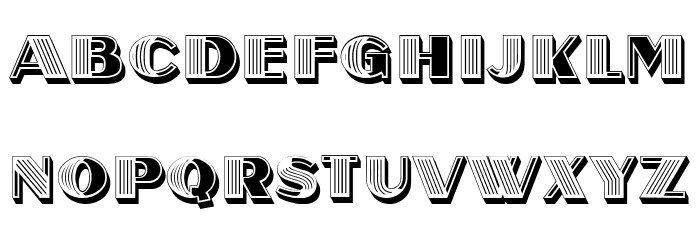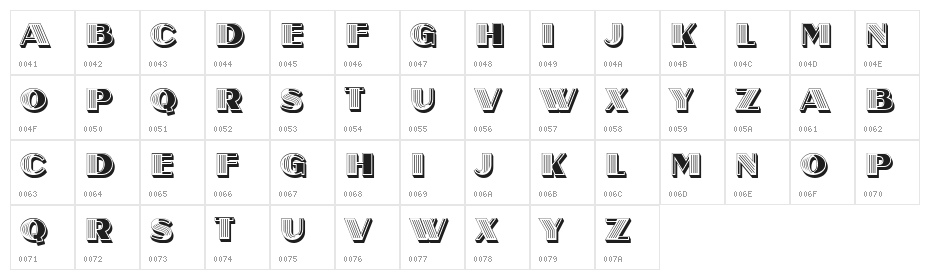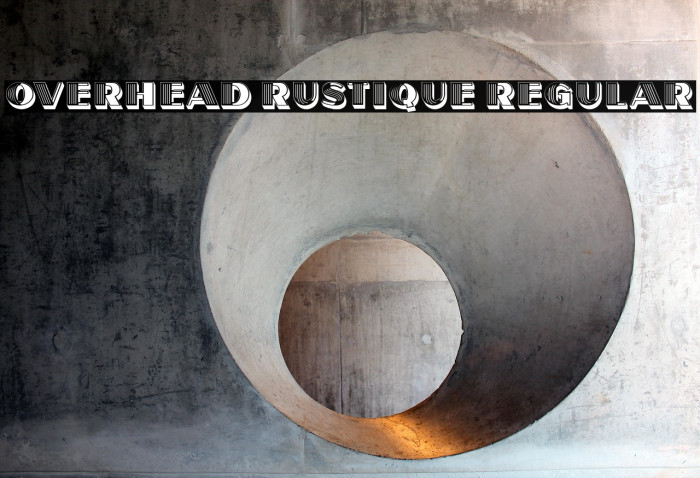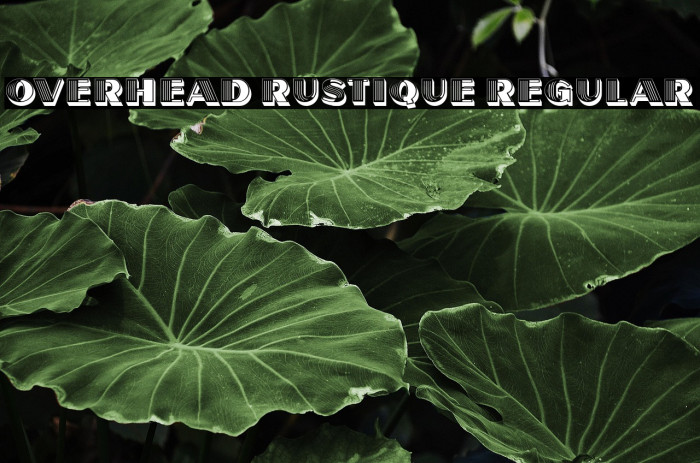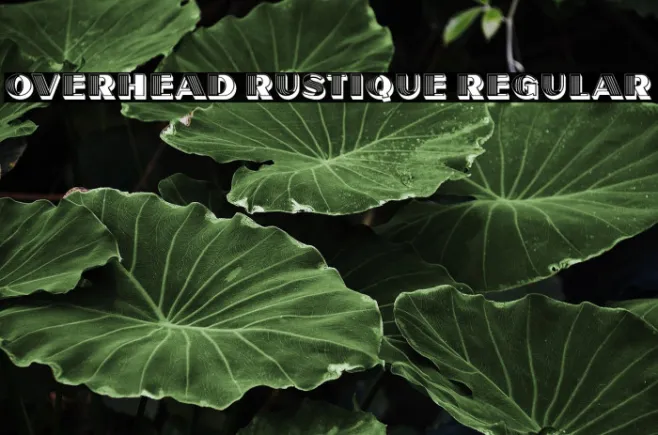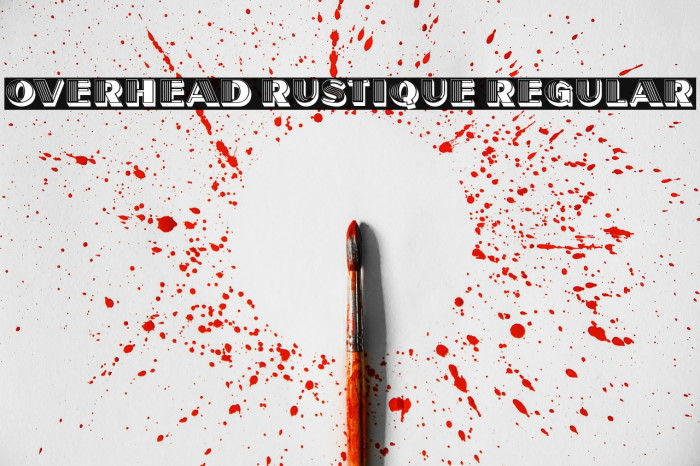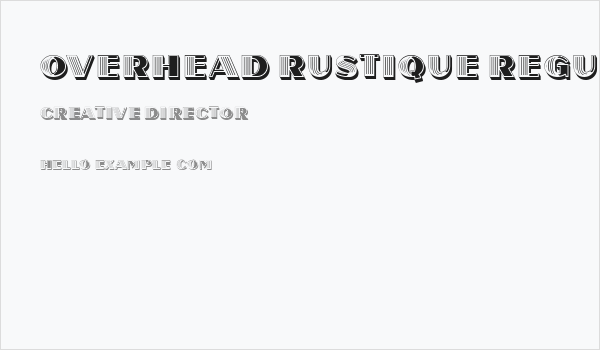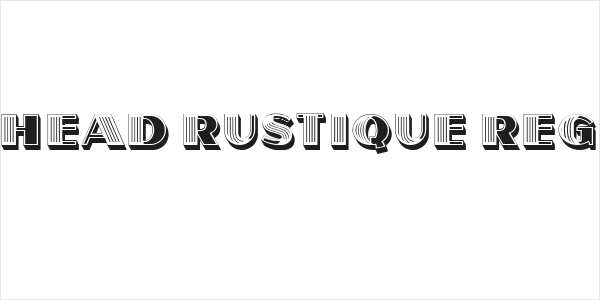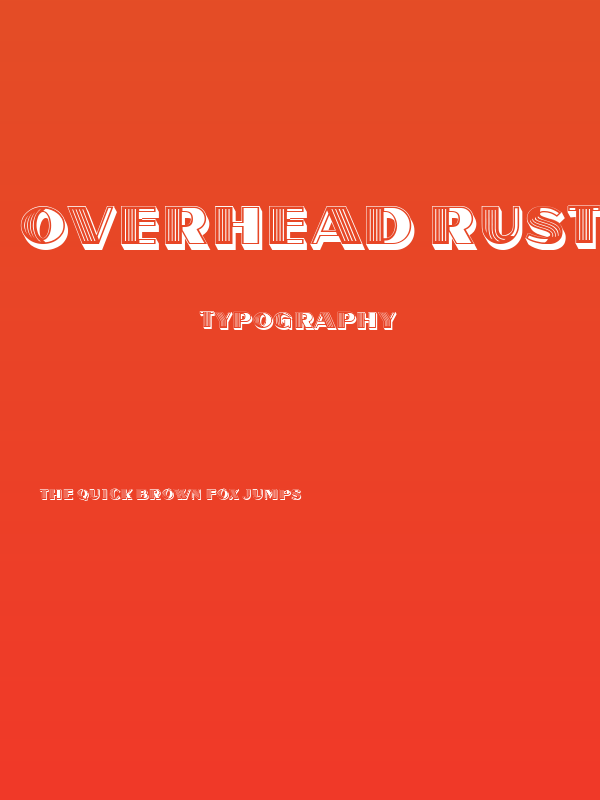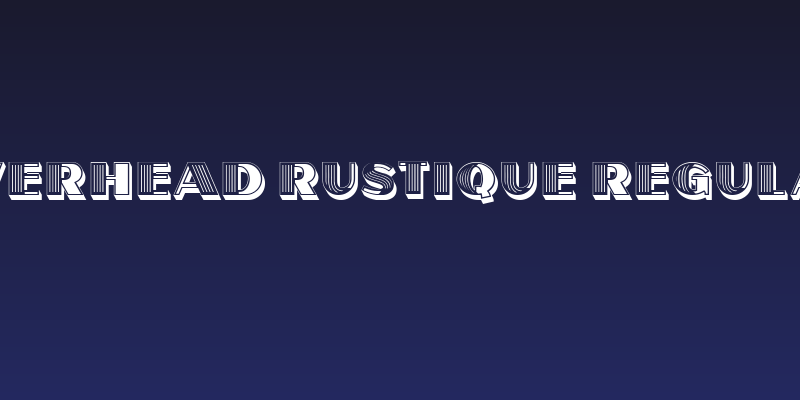
Overhead Rustique Regular Font
Overhead Rustique Regular Description
This font features a bold, decorative style with a distinct three-dimensional effect created by layered lines and shadows. The uppercase letters are designed with a strong geometric structure, giving them a robust and impactful appearance. The font's unique characteristic lies in its striped pattern, which adds depth and visual interest. The overall design is reminiscent of vintage signage, making it ideal for projects that require a retro or nostalgic feel. The font's boldness ensures it stands out, making it suitable for headlines and display purposes.
| Proposed Projects | Ideal for retro-themed posters, vintage branding, signage, and headlines. |